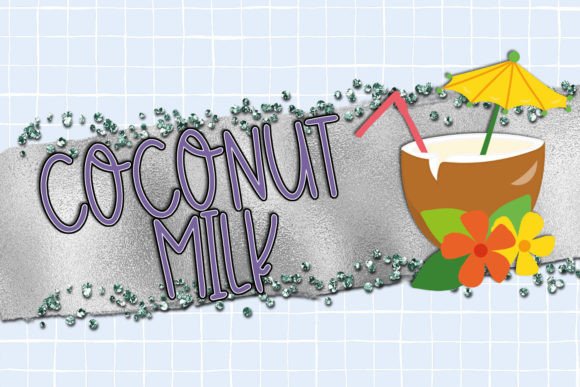
Behold Coconut Milk, the script font that will take your English essays to new heights! Crafted by the talented NicholeAndrew, Coconut Milk exudes a charm that's both playful and sophisticated. Its hand-written style adds a touch of warmth and personality to your projects, while its smooth, cuttable nodes make it a breeze to use with cutting machines.
With Coconut Milk, your essays will stand out from the crowd. Its friendly and whimsical appearance invites readers in, captivating their attention from the very first word. Each letter dances across the page, as if written by a master calligrapher, giving your words an artistic flair that's sure to impress.
But Coconut Milk is more than just a pretty face. It's also incredibly versatile, lending itself to a wide range of projects. Whether you're creating invitations, greeting cards, posters, or even logos, Coconut Milk effortlessly adapts to your vision. Its effortless charm adds a touch of elegance to any design, making it the perfect choice for both personal and professional projects.
Immerse yourself in the world of Coconut Milk and discover a font that's as delightful as it is functional. Unleash your creativity and let your words shine with a font that truly captures your unique style. Whether you're a student, a writer, or a crafter, Coconut Milk is the perfect companion for all your creative endeavors.